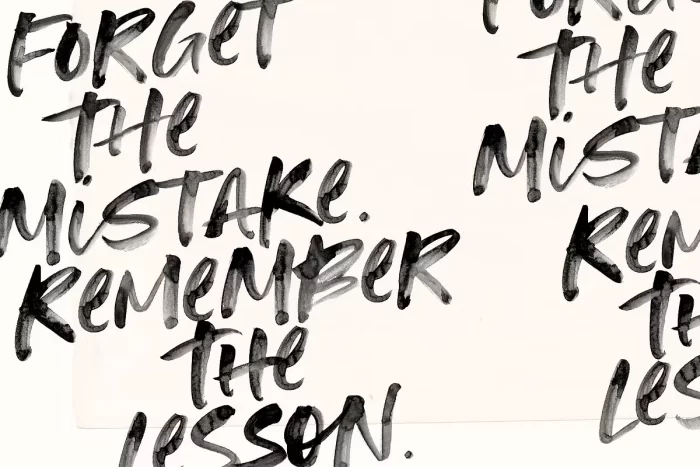
It’s bold, brazen, and irresistibly fun – it’s Hot Mess! A super realistic hand brushed SVG font just raring to get going. Hot Mess uses new Opentype-SVG font technology to provide high resolution watercolour paint strokes completely built in to the font as a transparency – just simply type away and let the font do it’s magic. It’s guaranteed to leave a lasting impression on social media posts, advertisements, posters, products packaging & more.
Ligatures • Both Hot Mess fonts include 17 ligatures built in to the font. These letter pairs help to create authentic, naturally flowing hand-lettering. Ligatures are supported by most desktop graphics & text software (not just the fancy ones!), including Photoshop, Illustrator, InDesign, Word, Pages & Keynote. Ligatures will automatically be switched on when using supported software.